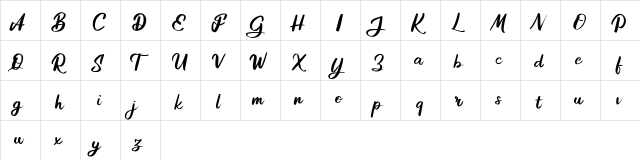
Adisone FREE Regular
Design Context for Adisone FREE Typeface
Adisone FREE is a composed and adaptable typeface that performs quietly and consistently across a wide range of design contexts.